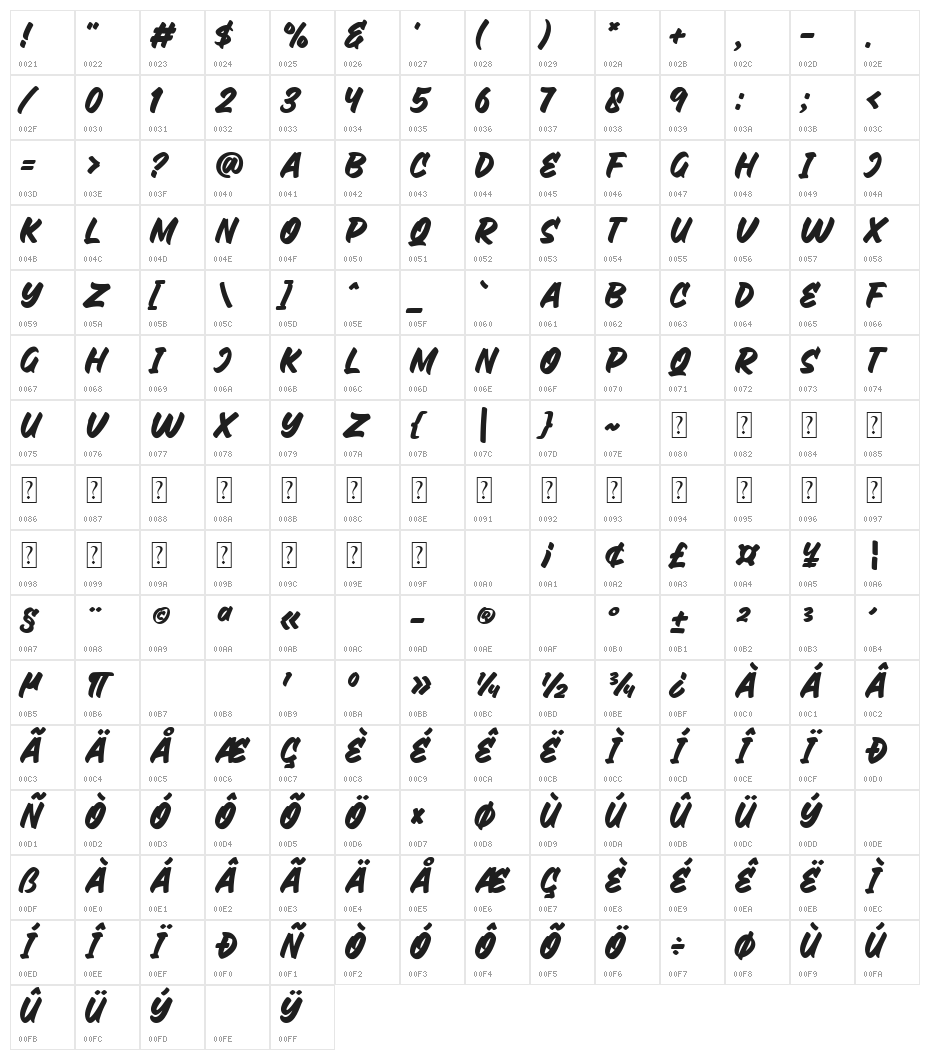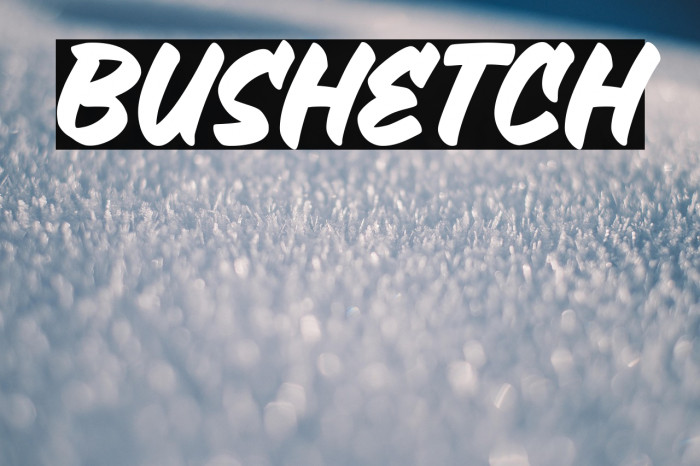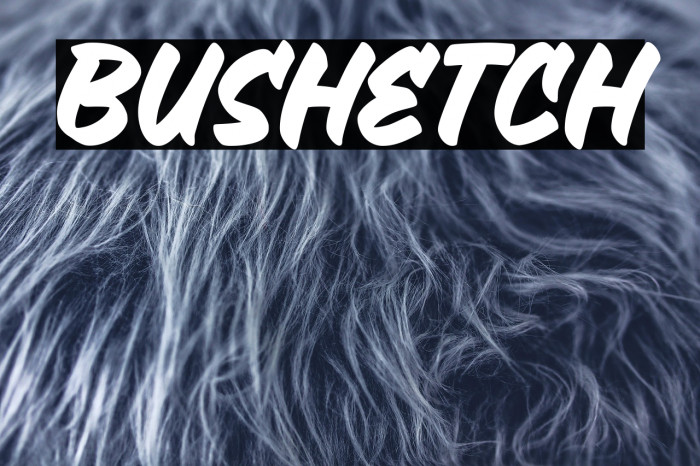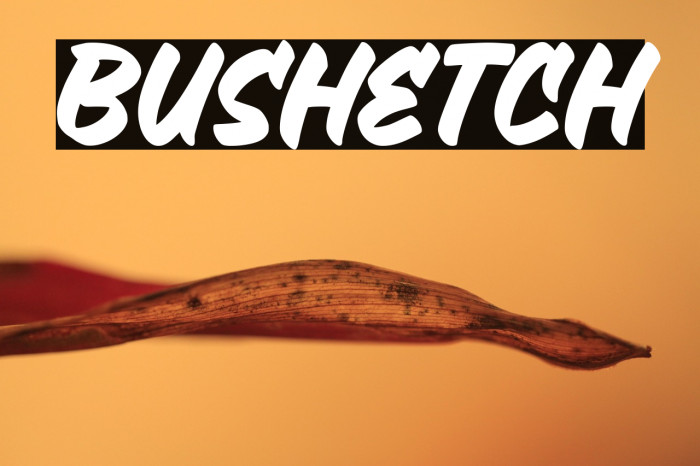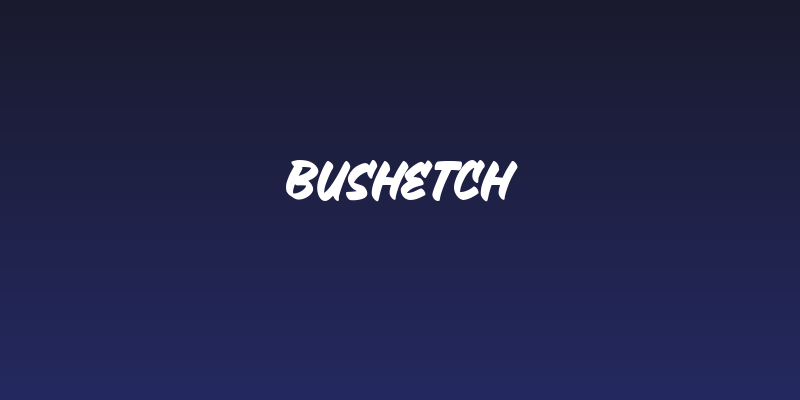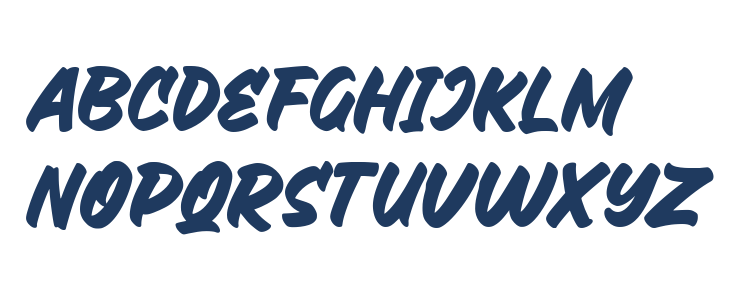
Bushetch Font
Bushetch Description
This font features a bold, dynamic script style with a strong presence. The characters are designed with a brush-like appearance, giving them an energetic and lively feel. The strokes are thick and consistent, providing a sense of boldness and confidence. Each letter flows into the next with smooth, rounded edges, enhancing the script's fluidity. The numbers and special characters maintain the same stylistic approach, ensuring a cohesive look across all elements. This font is perfect for projects that require a touch of personality and flair.
| Use Case | Logos, Headlines, Posters |
| Proposed Projects | Ideal for branding, logos, posters, and any design requiring a bold, expressive touch. |